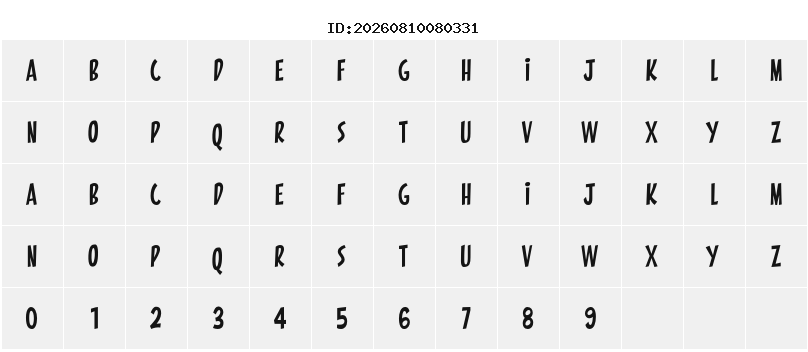
PINTANINA Preview
• Font Name: PINTANINA
• Font Style: PINTANINA
• Full Font Name: PINTANINA
• PostScript Name: PINTANINA
• Manufacturer: Rodrigo Araya Salas
About PINTANINA.otf
PINTANINA.otf is a modern, elegant sans-serif font designed for ultimate readability and visual harmony. Perfect for branding, headlines, web design, and print materials.